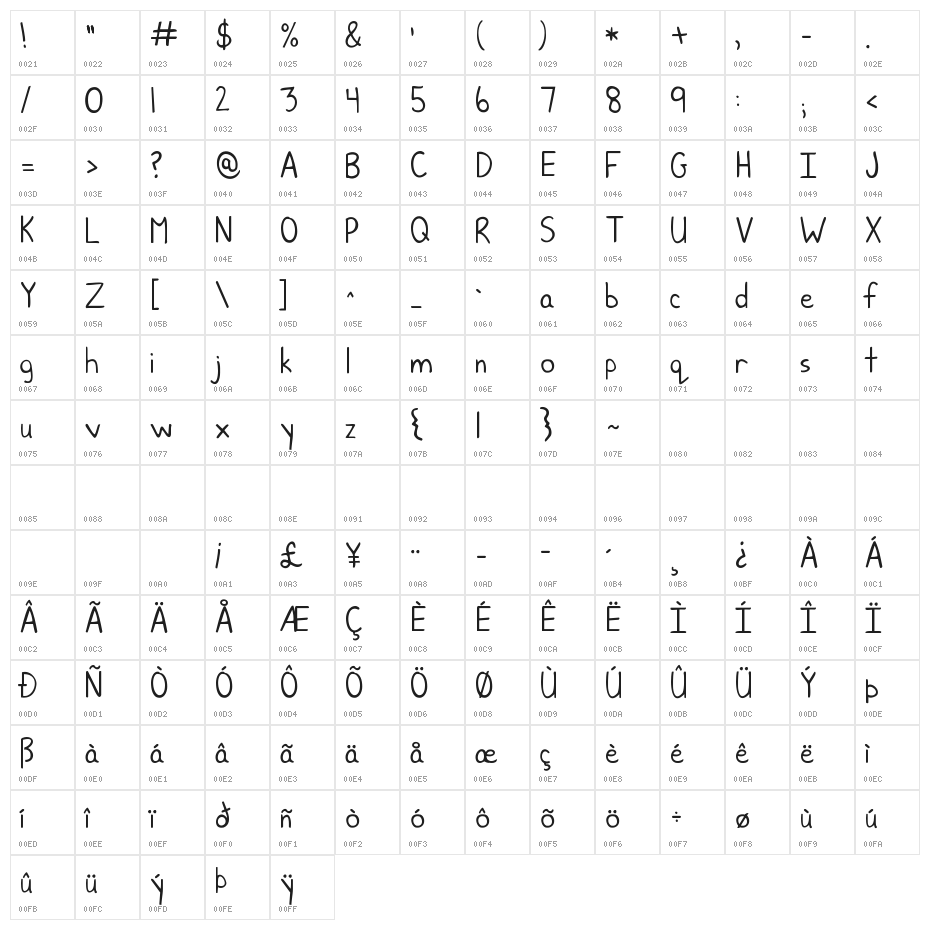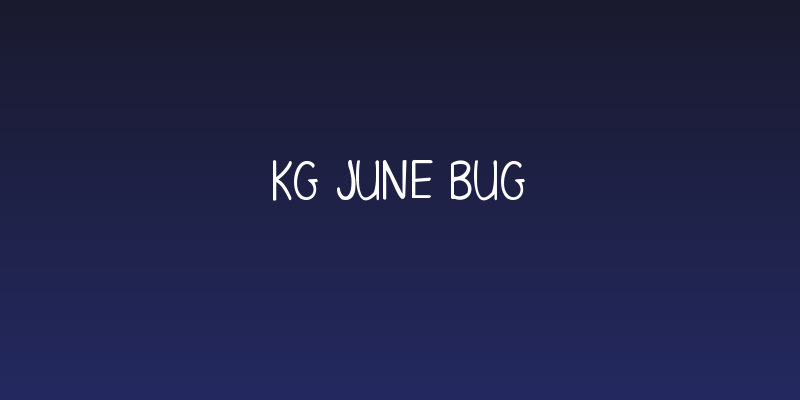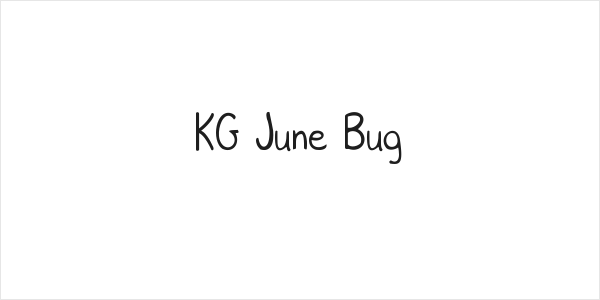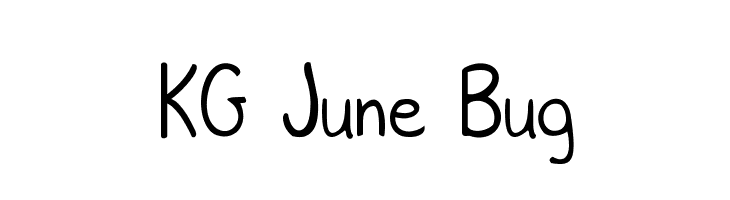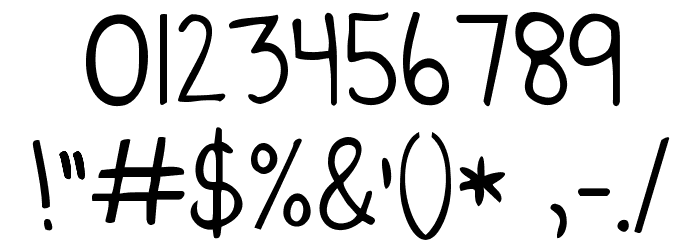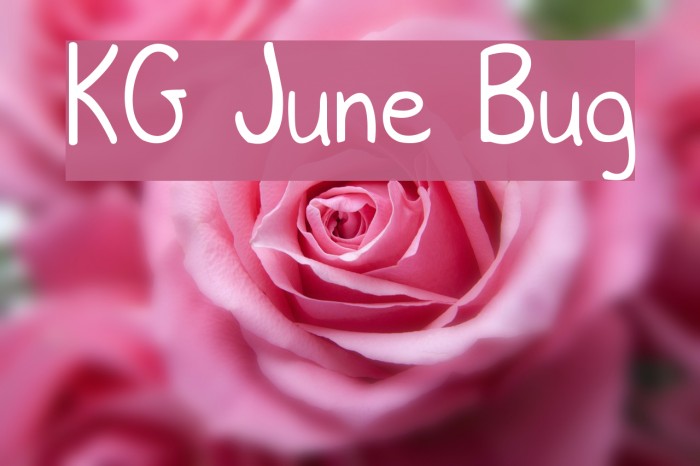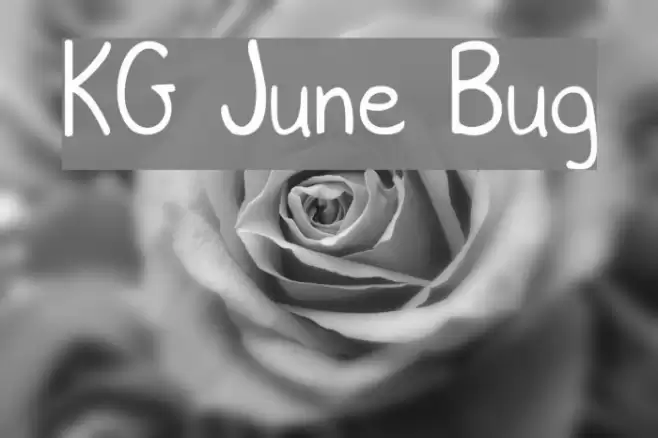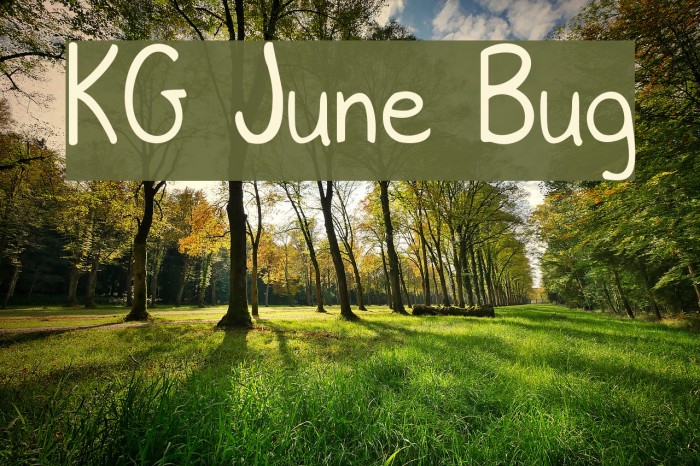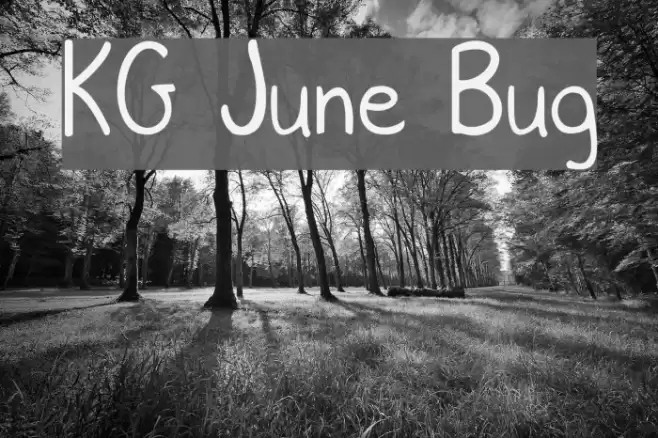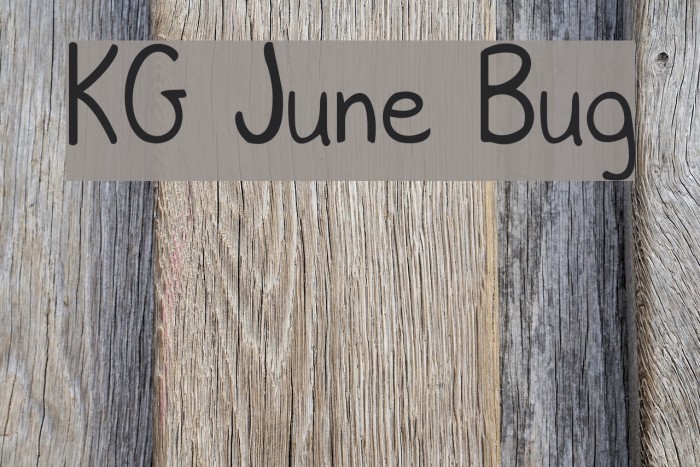
KG June Bug Font
| Style général | Casual, Playful |
| Cas d'utilisation | Headlines, Informal text, Creative projects |
| Projets proposés | Ideal for children's books, greeting cards, playful branding, and casual invitations. |